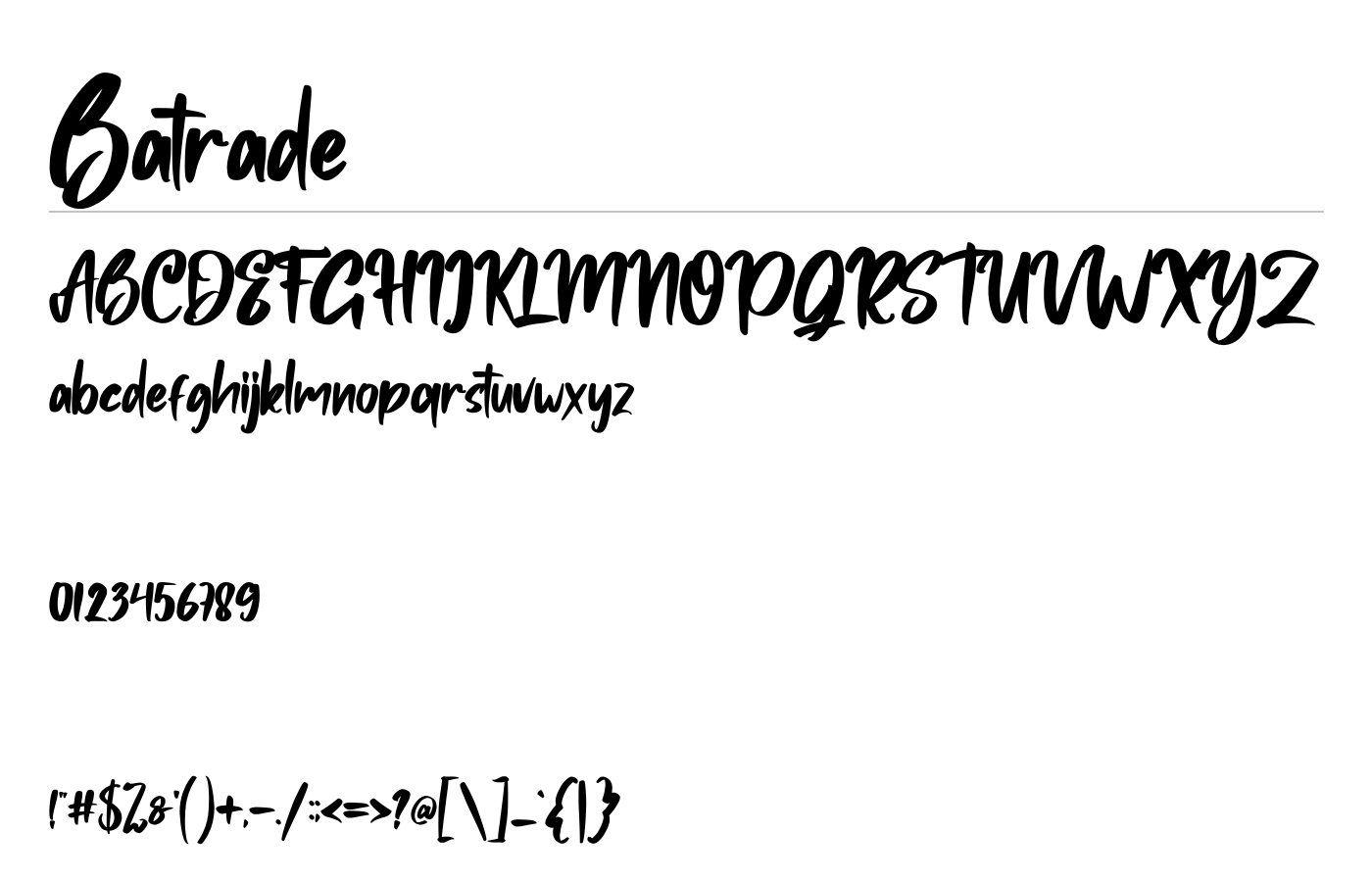
Batrade is a lively, hand-brushed script font with bold, dynamic strokes that create a playful and energetic feel. Its thick and varied lines, combined with casual, slightly irregular letterforms, make it ideal for eye-catching headlines, branding, and creative projects that want to convey warmth and personality. This font works best for designs seeking a friendly, artistic vibe, such as logos, posters, and social media graphics.
Batrade Font
About Batrade Font